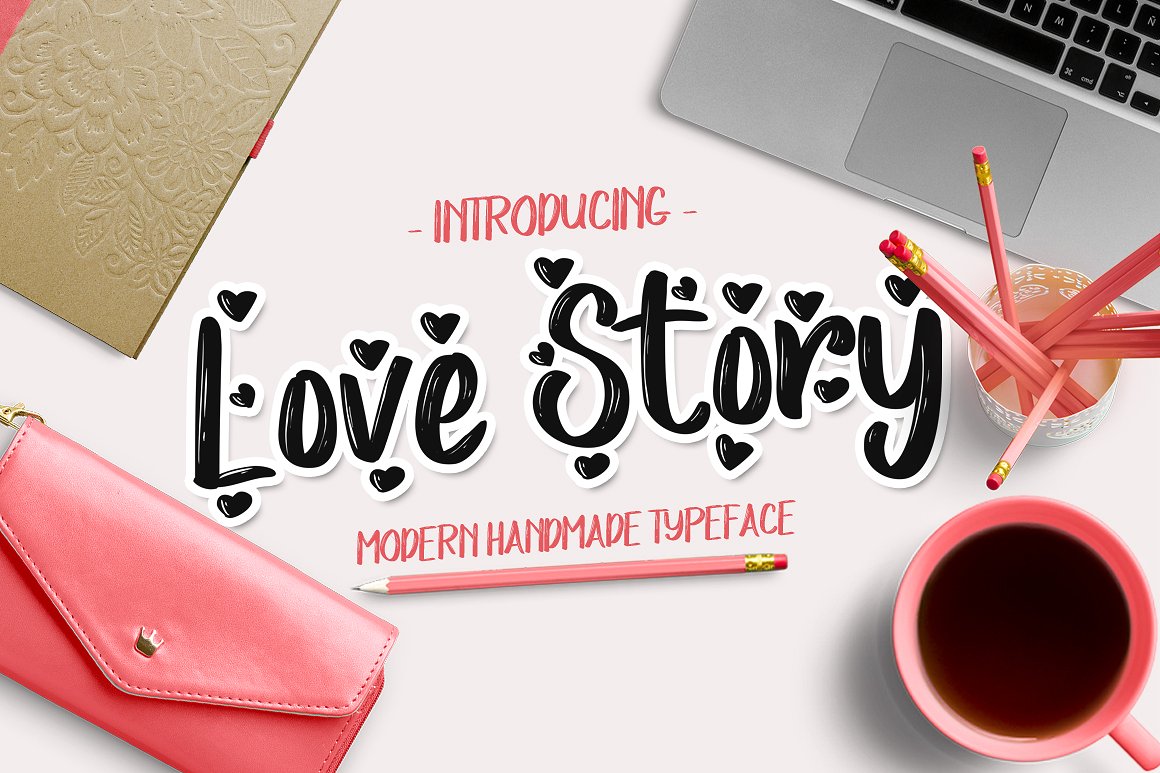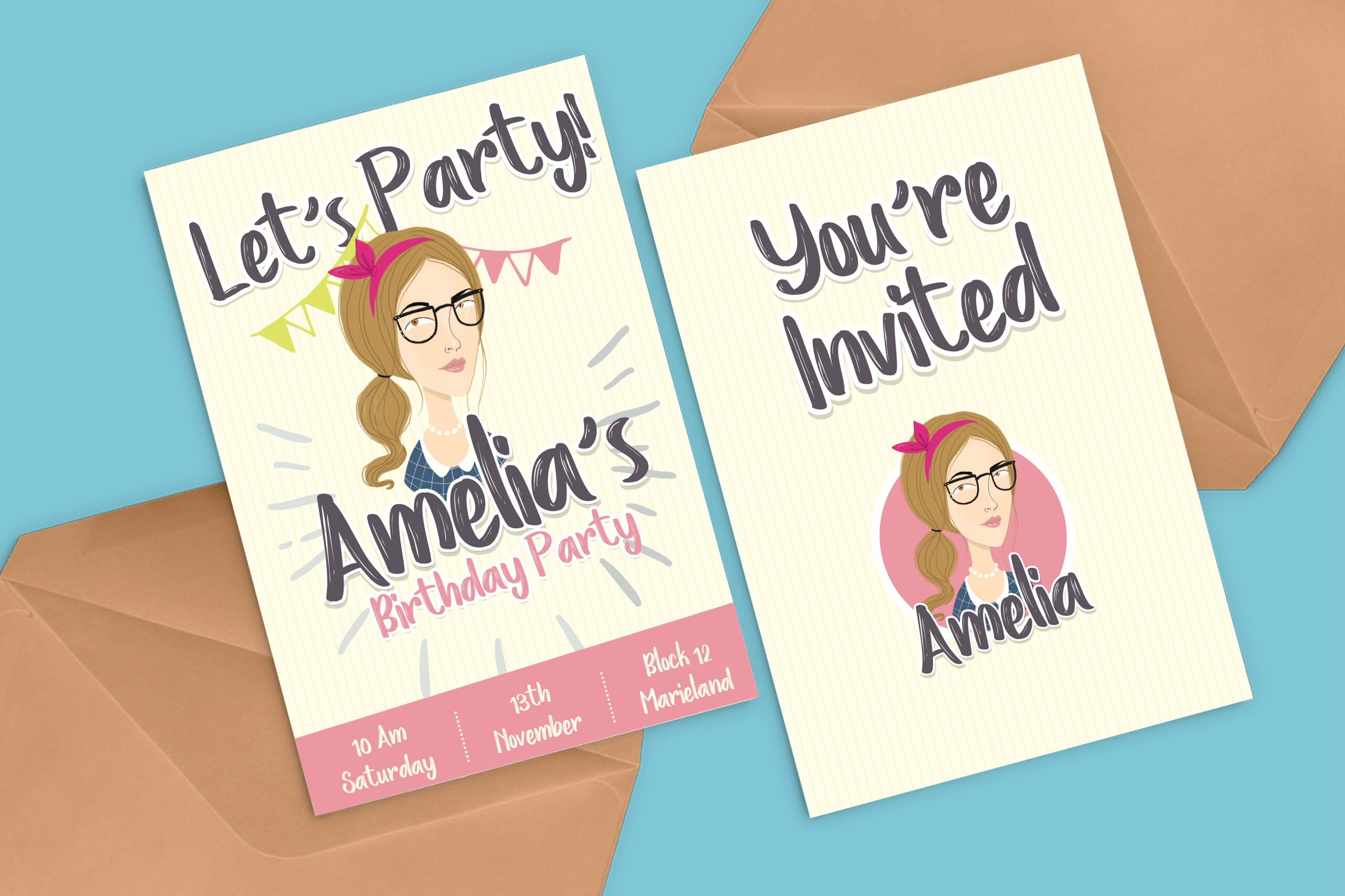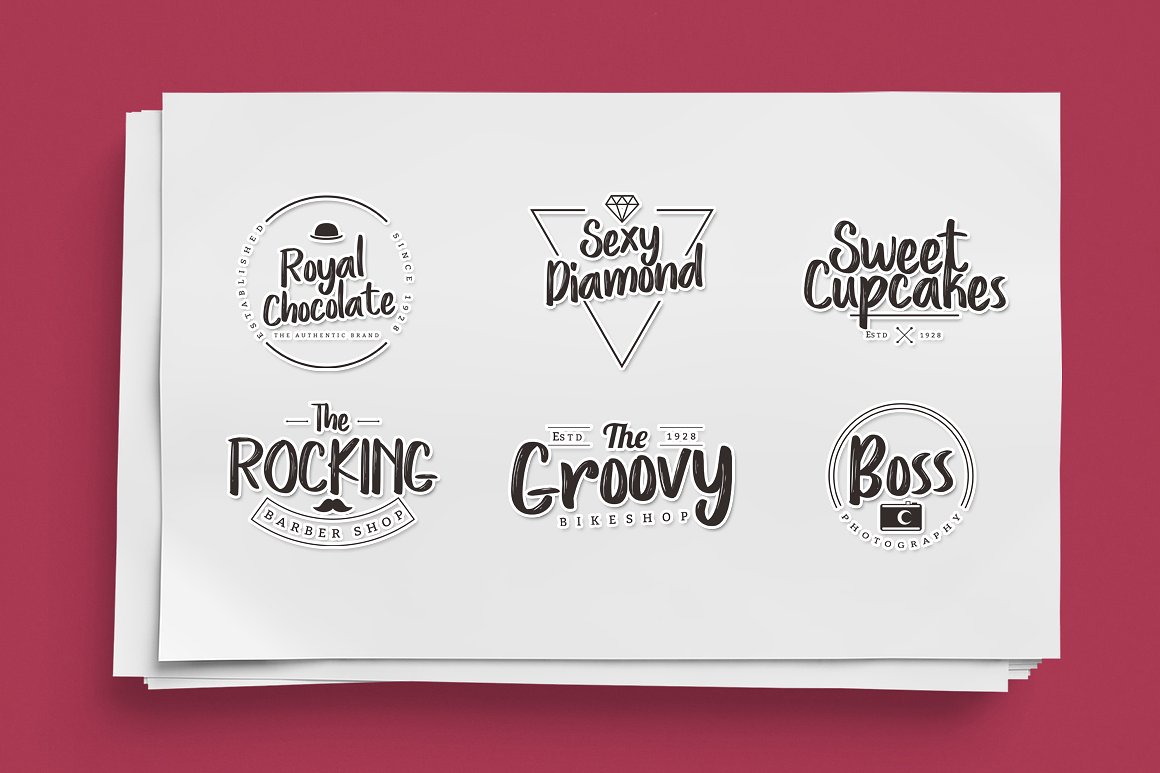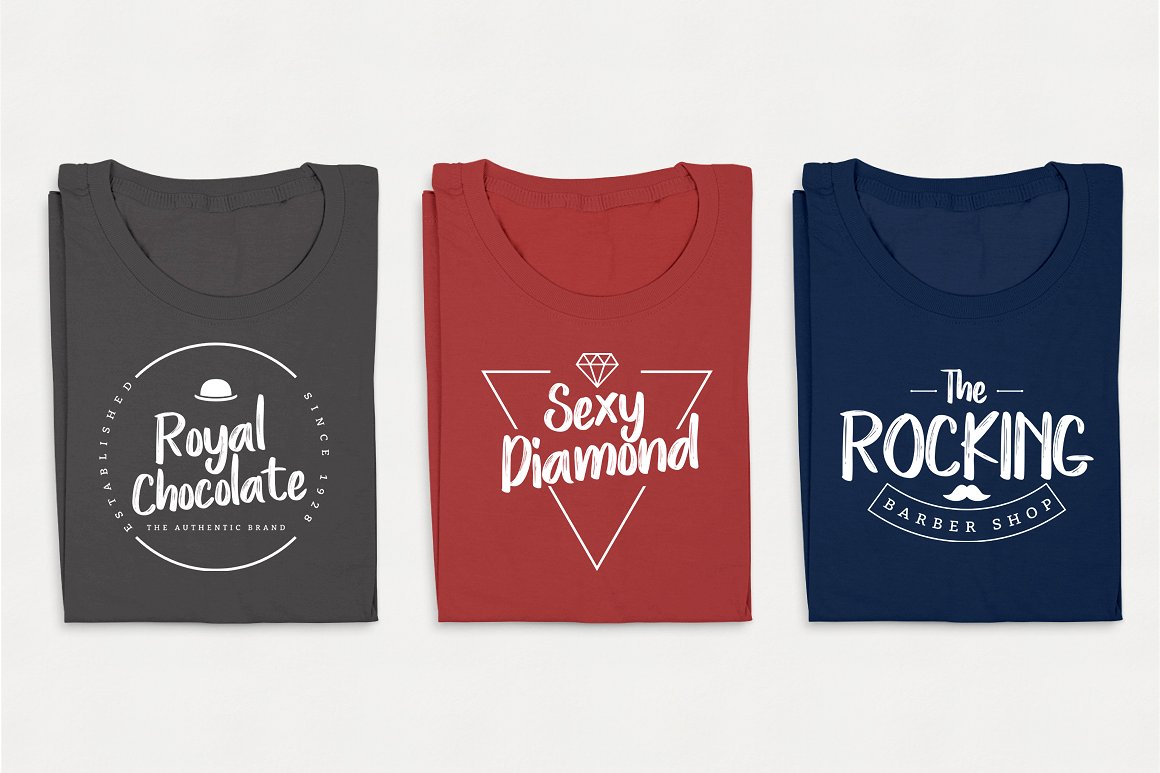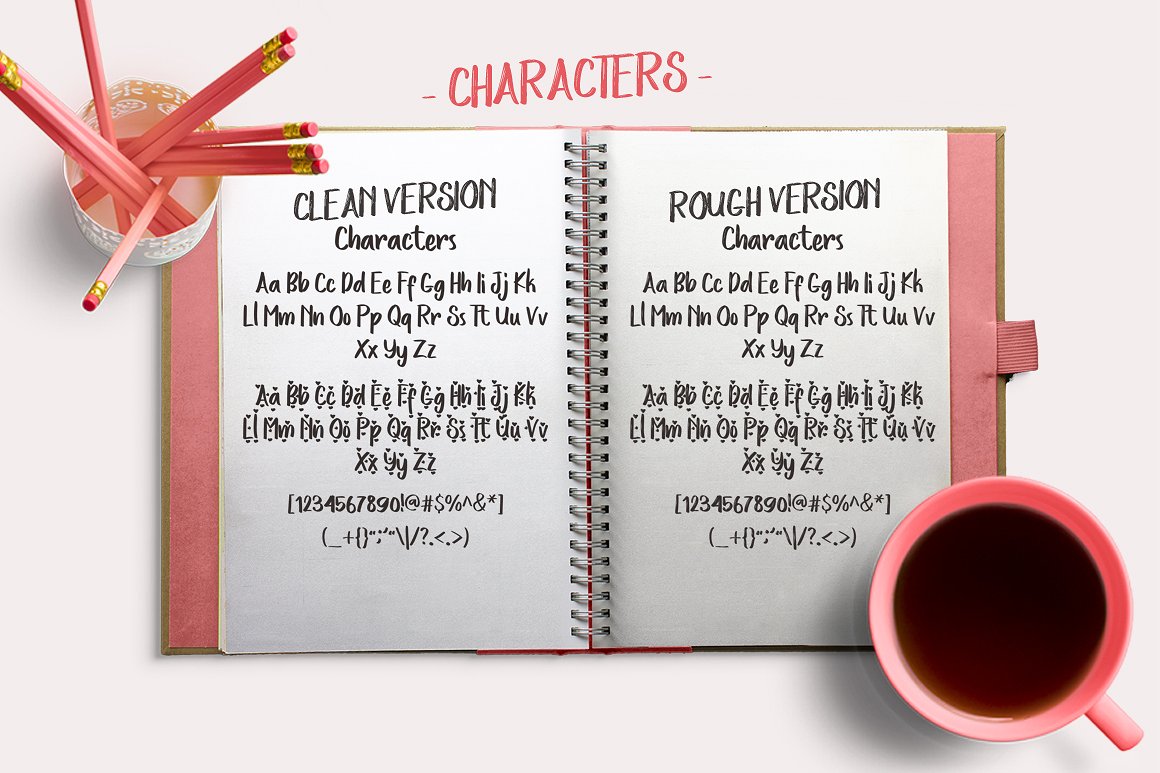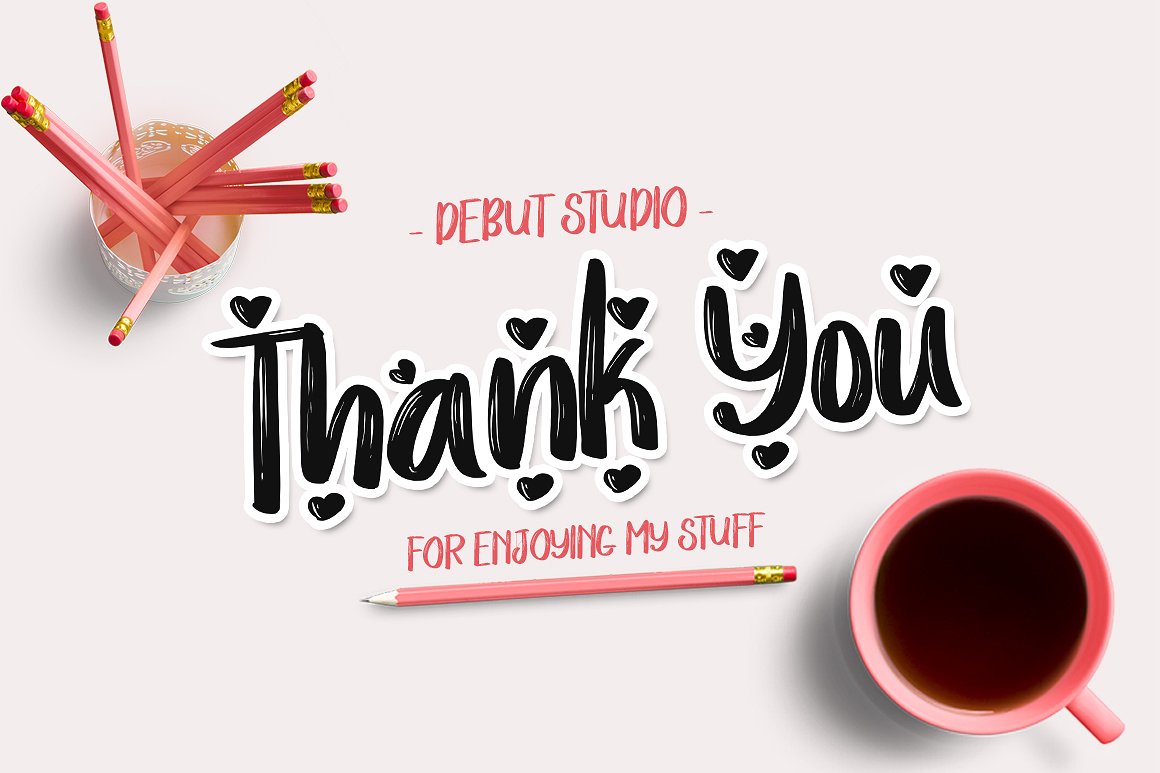
Love Story Font
Love Story is a handmade, loveable font. While it is created with crafters in mind, it works great for many different design purposes.
The natural flow of the font, combined with the hearts make it a unique font.
Apart from its attractive standard glyphs, The Love Story font also has some unique alternatives. Each character has 4 alternatives with hearts that appears at the top and bottom as well as the left and right side.